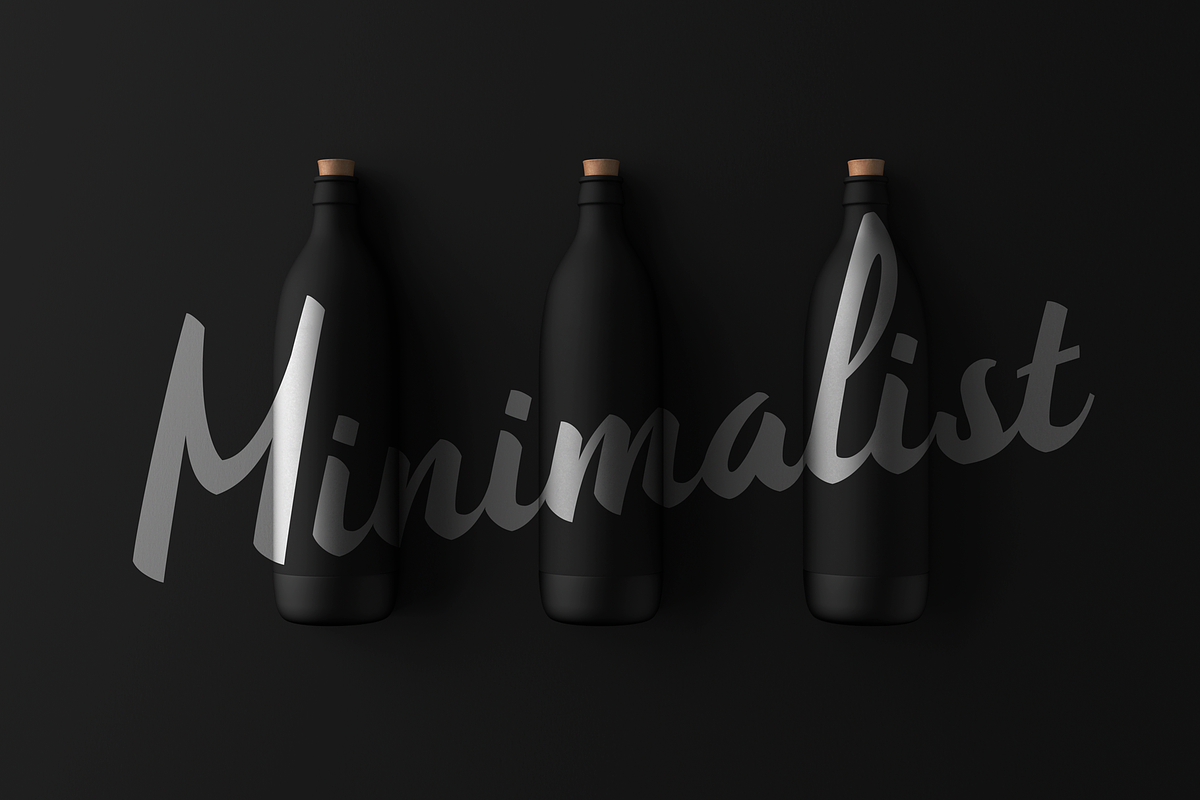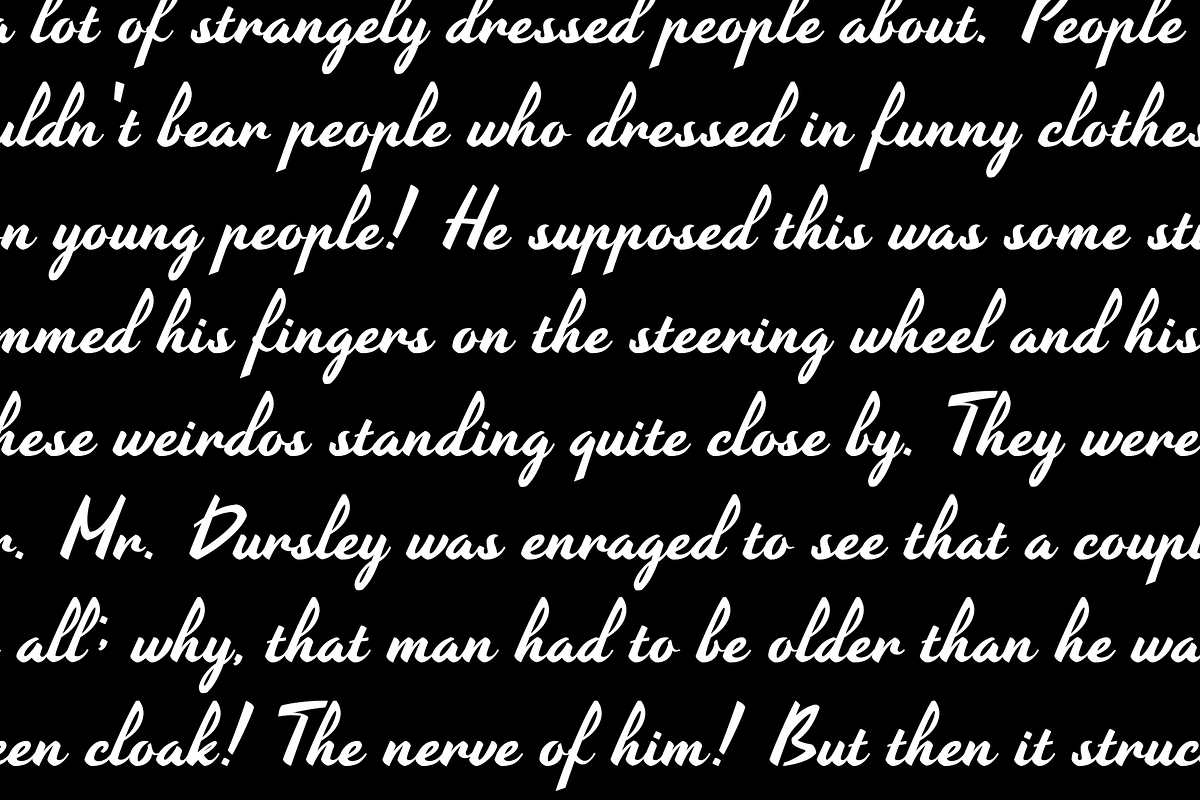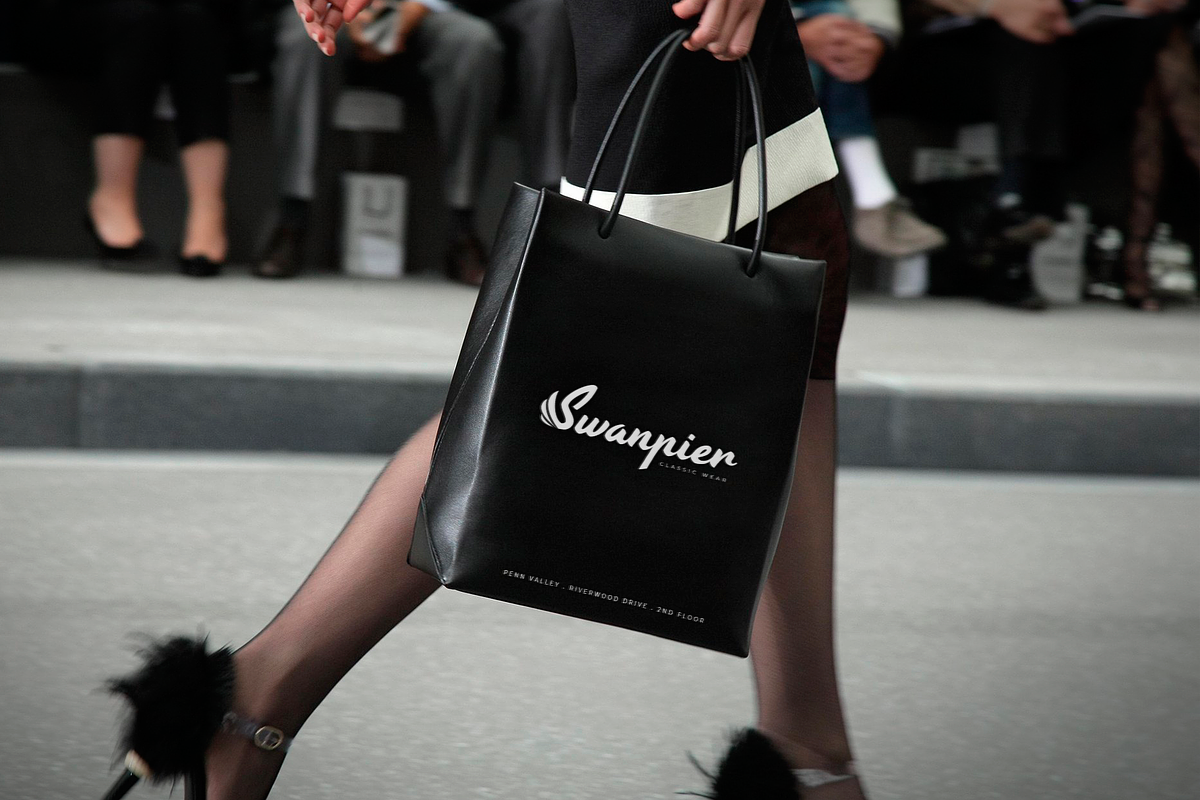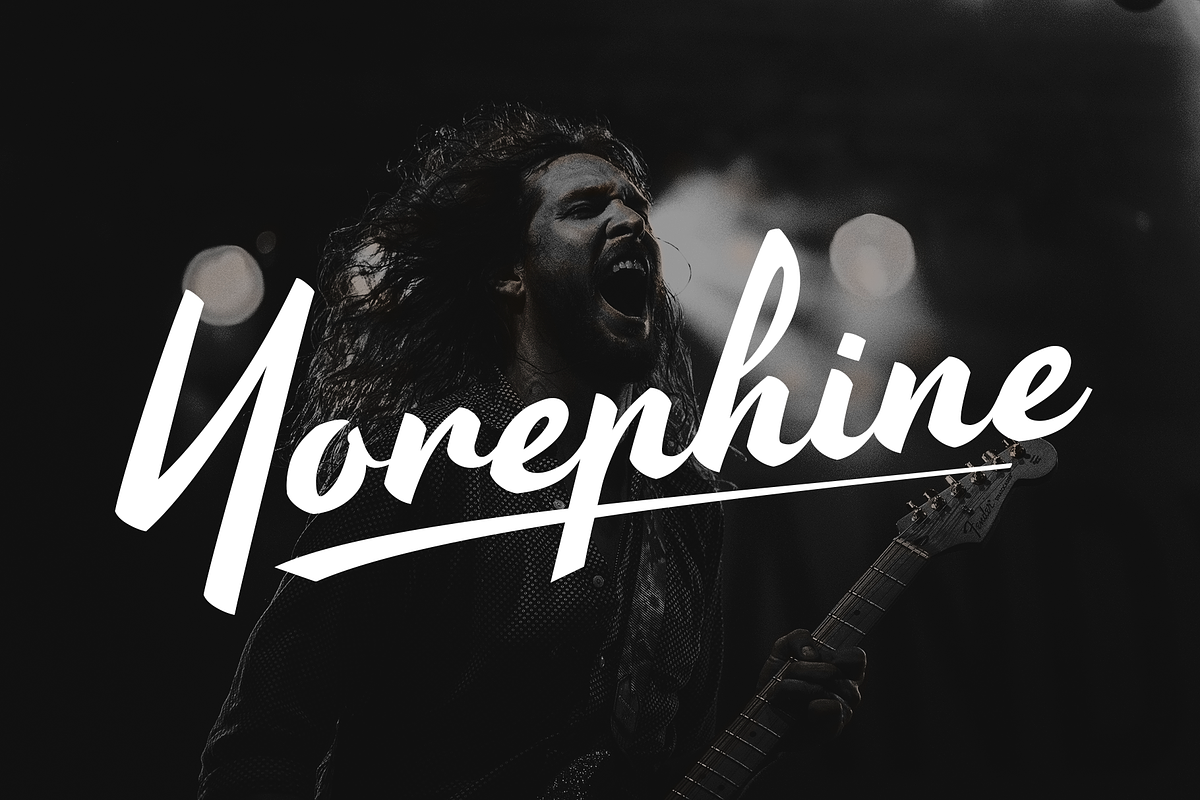
Yorephine - Lettering Script Font
modern lettering script for your bike repair company logo
Why Yorephine - Lettering Script Font is worth a look
Yorephine - Lettering Script Font by Alberto Fontense fits naturally into Branding, posters, packaging, typography.